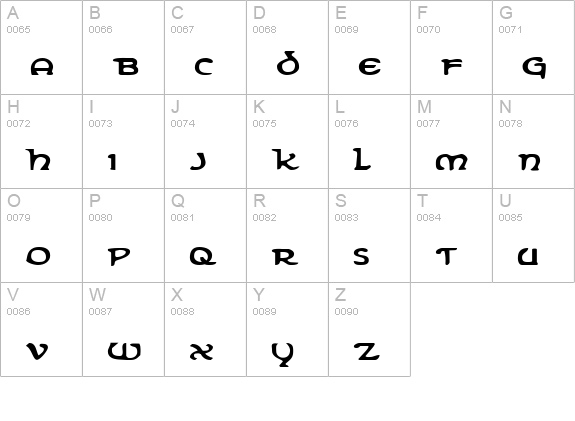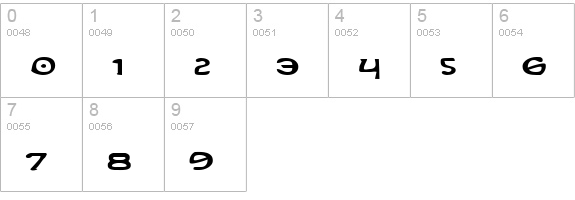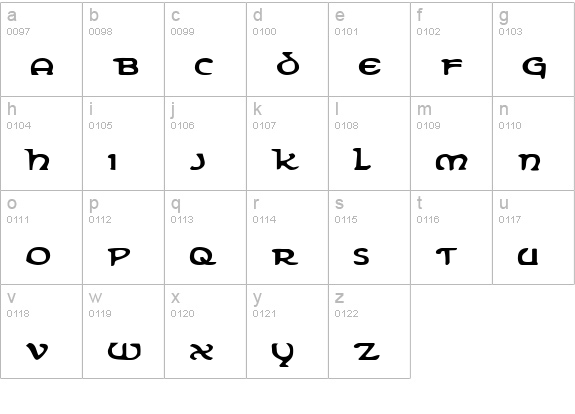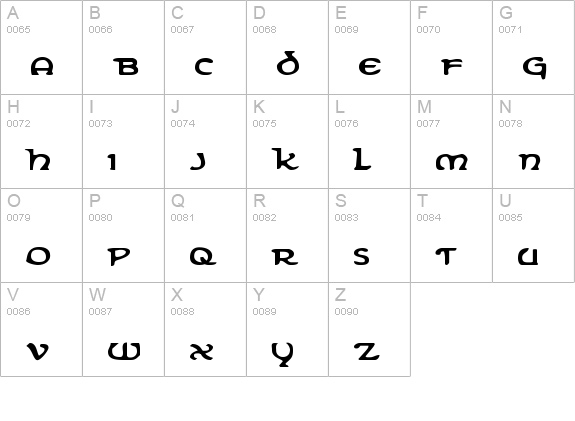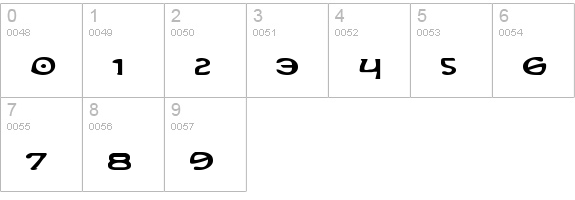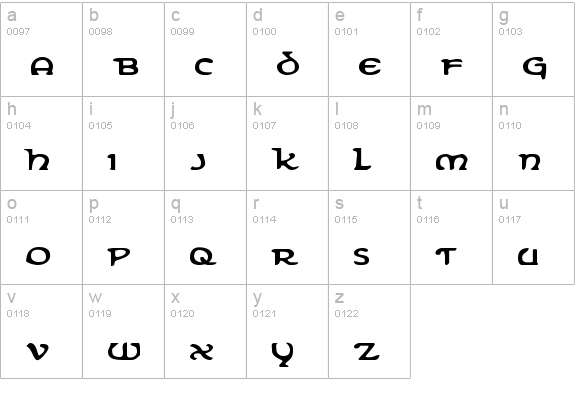
Erin Go Bragh Expanded is a distinctive, extended-width variant in the Erin typeface family \xE2\x80\x94 well suited to design and typography projects.
The Erin Go Bragh Expanded font is a versatile and eye-catching typeface that exudes elegance and sophistication. With its unique design and elongated letterforms, this font is perfect for creating impactful headlines, signage, and branding materials. The clean lines and modern aesthetic of Erin Go Bragh Expanded make it a standout choice for both print and digital projects. What makes Erin Go Bragh Expanded even more appealing is that it is available for free download at FontsMarket.com. This means that you can easily access this beautiful font without any cost, making it a valuable addition to your design toolkit. Whether you're working on a personal project or a professional assignment, Erin Go Bragh Expanded is sure to elevate your designs and leave a lasting impression. Download it today and unleash your creativity with this stunning typeface.